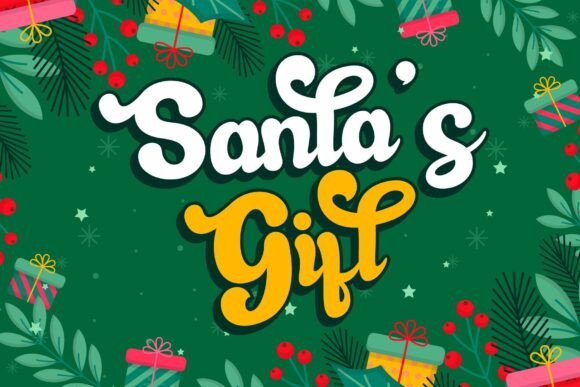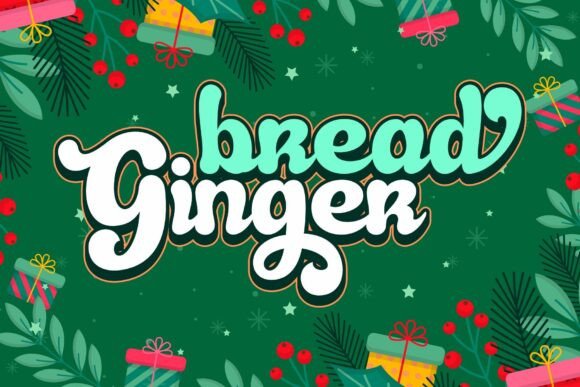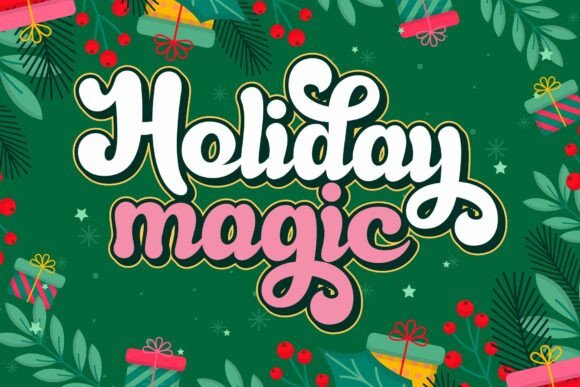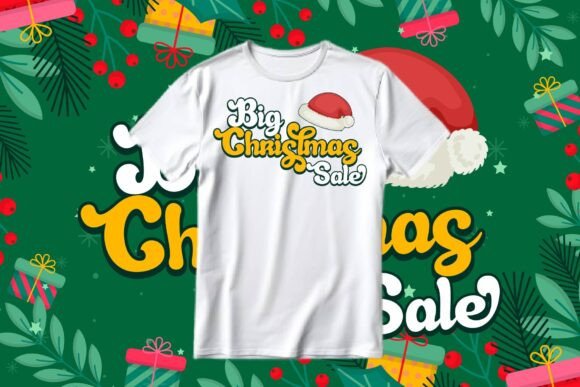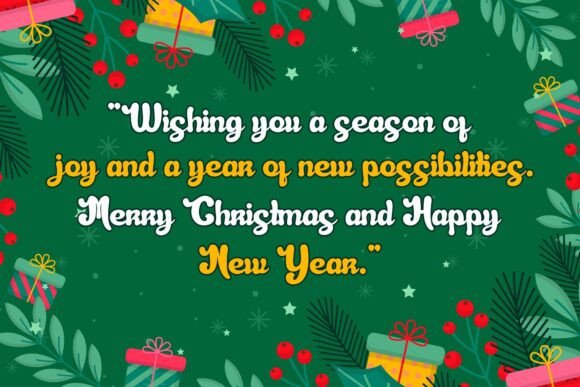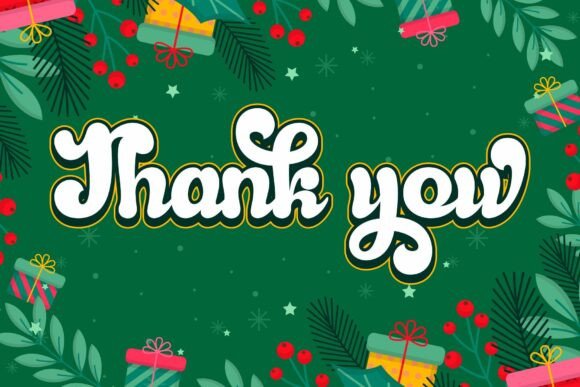
Deck the Halls with Holiday Cheer: The Magic of Christmas Font
It’s that time of the year when creativity is in full bloom, and designers are on the lookout for the perfect tools to make their holiday designs stand out. As you’re browsing through your font collection, you stumble upon a vintage treasure that sparks your imagination – a handwritten font that screams Christmas magic. Introducing the Christmas Font, a cool, vintage-style font that adds a special retro touch to any design idea.
Whether you’re designing festive logos, branding, invitations, or wedding stationery, the Christmas Font is an invaluable asset in your creative arsenal. With its PUA encoding, you can easily access all glyphs and swashes, giving you the freedom to get creative and add that extra special something to your designs. This font is a must-have for designers looking to infuse their work with a touch of holiday cheer and nostalgia.
Key Features of Christmas Font
- Font Family: A festive and playful script font, designed to evoke the spirit of Christmas.
- Unique Characteristics: The font features intricate, hand-drawn designs, with ornaments and flourishes that add a touch of elegance and whimsy to any project.
Christmas Font Review
Overall, I think the Christmas Font is a fun and festive addition to any holiday design project. Here’s what works well: ✨
- The font is highly customizable, with a wide range of color options and formatting styles.
- The design is playful and energetic, perfect for capturing the spirit of the holiday season.
- The font is easy to read, even at smaller sizes, which is a must for any design project.
However, there are a few limitations that I think are worth noting: ⚠️
- The font may not be suitable for all types of designs, particularly those that require a more subtle or elegant look.
- The font can be a bit overwhelming if used too liberally, so be sure to use it in moderation.
Overall, I think the Christmas Font is a great choice for holiday designs, but it may not be the best fit for every project. With a little creativity and restraint, this font can add a lot of fun and personality to your designs.
Tips for Getting the Most Out of Christmas Font
1. Use the Christmas Font in conjunction with festive graphics and colors to create a cohesive holiday design.
2. Experiment with different font sizes and styles to add visual interest to your design.
3. Use the Christmas Font in creative ways, such as in headers, titles, and even as a decorative element.
1. Holiday cards and invitations
2. Social media graphics and posts
3. Party decorations and signage
4. Gift tags and wrapping paper
Alternatives to Christmas Font
Copperplate Script
Copperplate Script is a elegant, cursive font that can be used to create a classic, sophisticated look. It’s perfect for invitations, greeting cards, and other holiday stationery. Copperplate Script is more refined and less playful than Christmas Font, making it suitable for more formal occasions.
Beth Ellen
Beth Ellen is a beautiful, handwritten font that can add a personal touch to your holiday designs. It’s great for creating a cozy, warm atmosphere and is perfect for use on gift tags, gift wrap, and other festive packaging. Beth Ellen is more casual and relaxed than Christmas Font, making it ideal for a more laid-back holiday celebration.